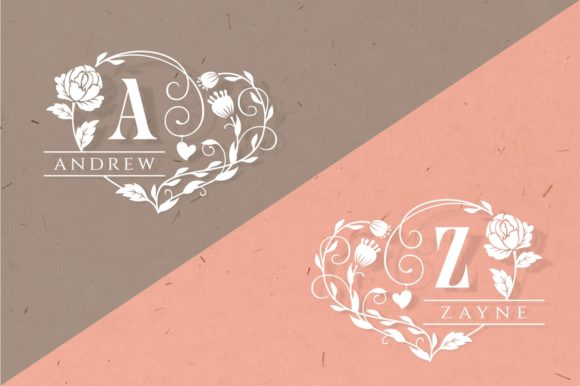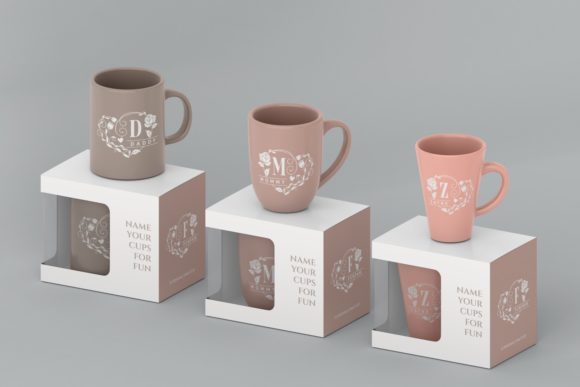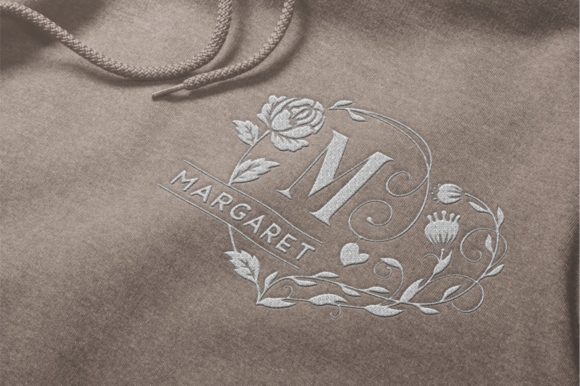
Introduction to Grabrie Font
Do you remember the feeling of holding your first love letter, or designing your dream wedding invitation? For many of us, these moments are etched in our memories as a perfect blend of creativity and romance. Whether it’s a heartfelt letter to a loved one or a beautiful invitation to a special occasion, the right font can elevate the entire experience. That’s where the enchanting Grabrie Font comes in – a dainty and unique decorative font that adds a touch of magic to any design.
As a valuable resource for designers, Grabrie Font offers a high-quality option for creative projects, from wedding invitations to love letters. With its delicate charm, this font is perfect for adding a personal touch to your designs. And the best part? You can download it for free, complete with a transparent background, making it easy to integrate into your favorite design software.
- Unique characteristic: Grabrie Font’s distinctive design and style make it an excellent choice for designers looking to add a touch of elegance and sophistication to their creative projects.
Honest Review: Grabrie Font
As a designer, I’m always on the lookout for high-quality design resources that can elevate my creative projects. The Grabrie Font is one such resource that caught my attention recently.
- ✨ The Grabrie Font has a beautiful, elegant design that’s perfect for headings and titles.
- ⚠️ The Grabrie Font only comes in a single style, which might not be ideal for designers who like to mix and match different font styles.
Overall, I’m impressed with the Grabrie Font. It’s a great addition to any designer’s toolkit, and its high quality and free download make it a must-have for any creative project.
Common Use Cases for Grabrie Font
Grabrie Font is ideal for a variety of creative projects, including logo designs, social media graphics, and presentations. The font’s high-quality design and transparent background make it a versatile design resource for any project.
Yes, the Grabrie Font is designed to be highly legible and suitable for large-scale printing projects. However, for optimal results, we recommend using a high-quality printer and adjusting the font size and spacing according to your specific printing requirements.